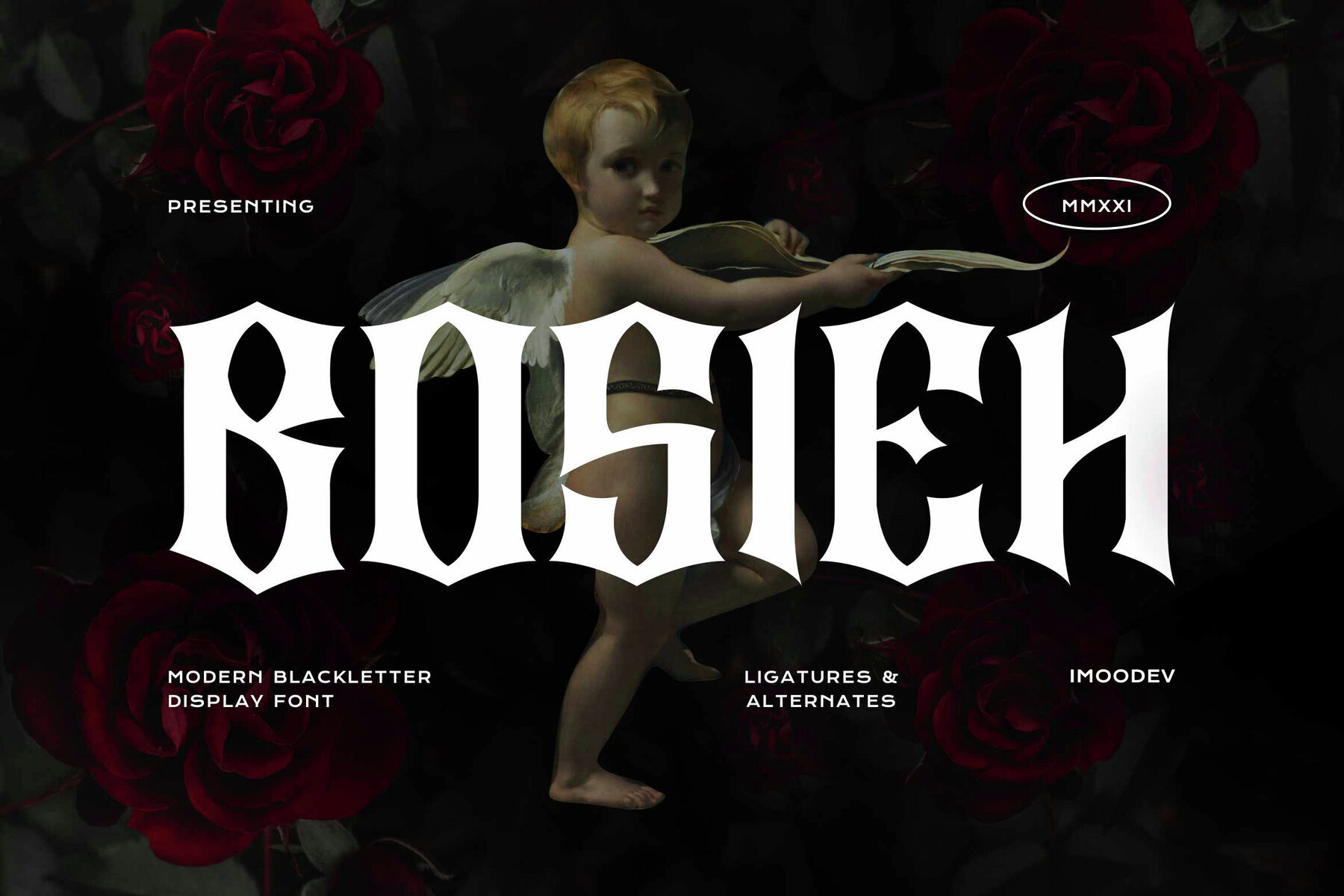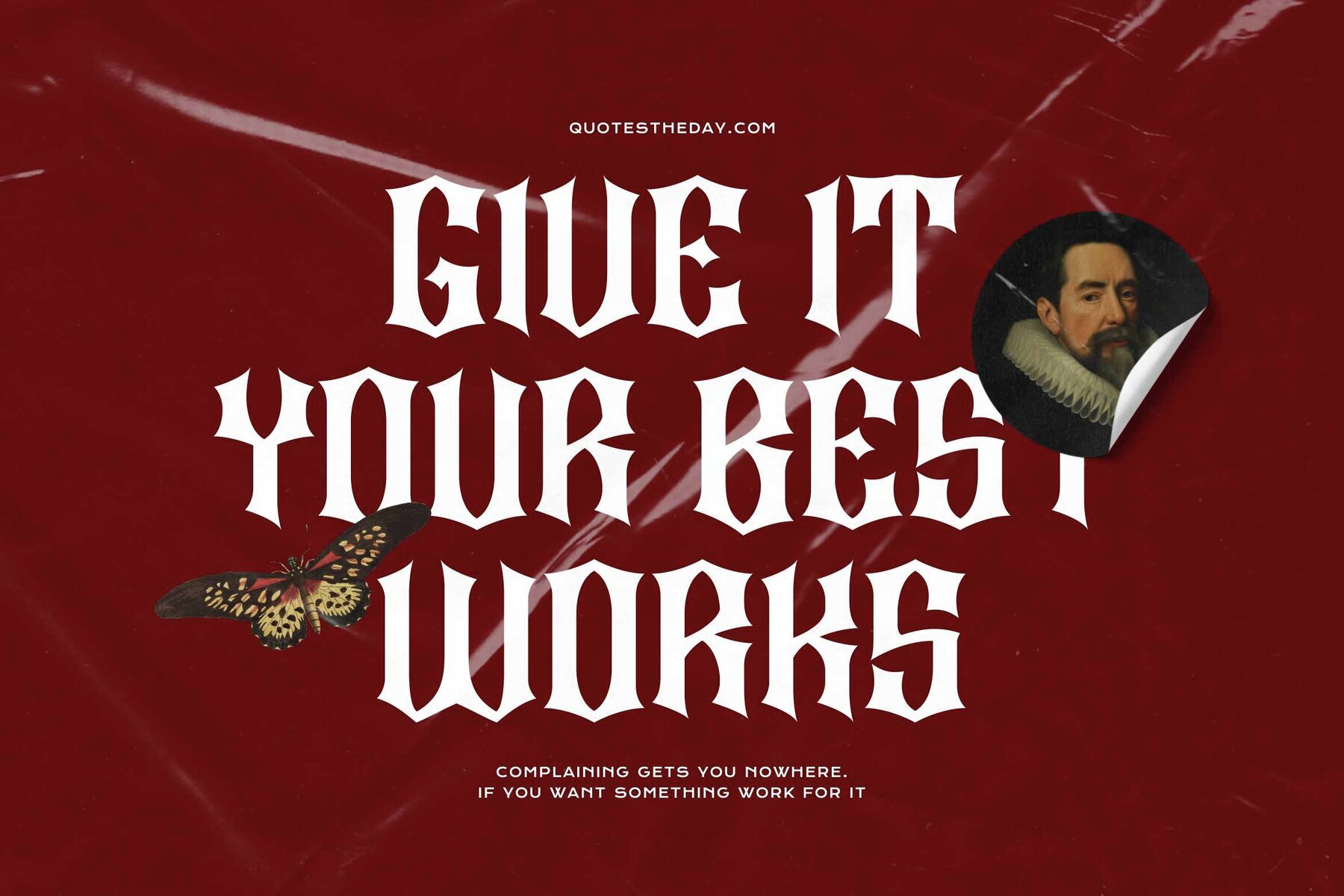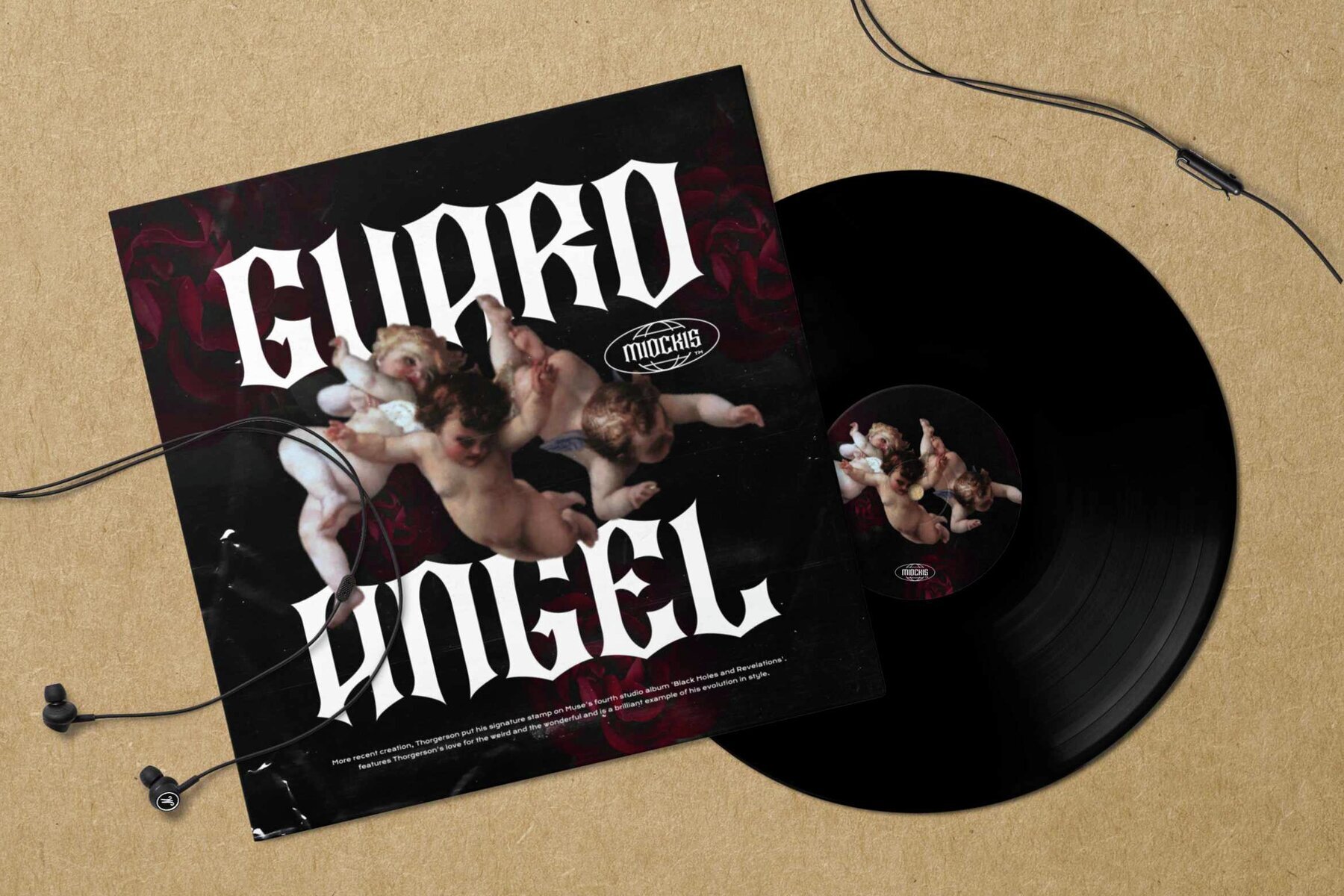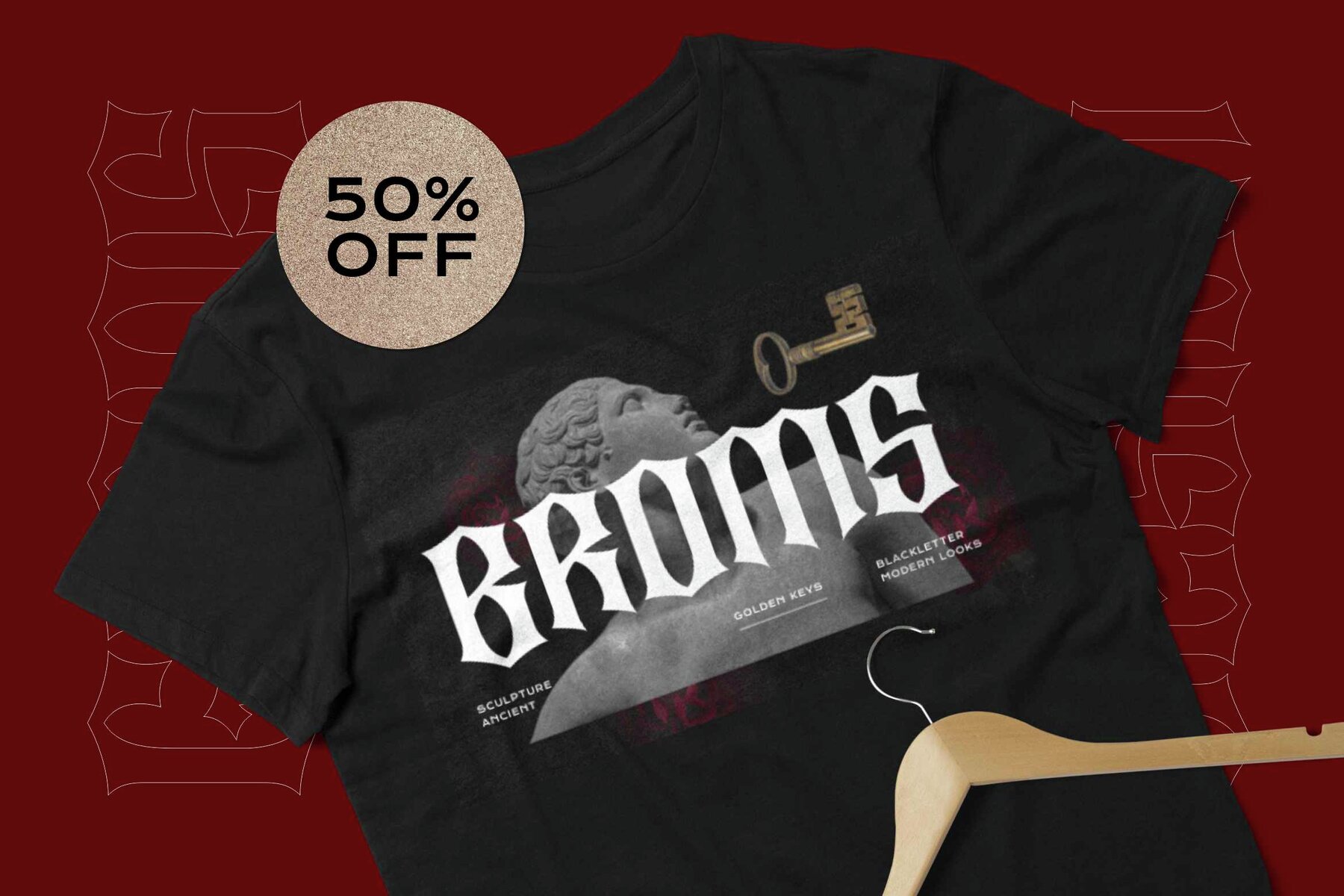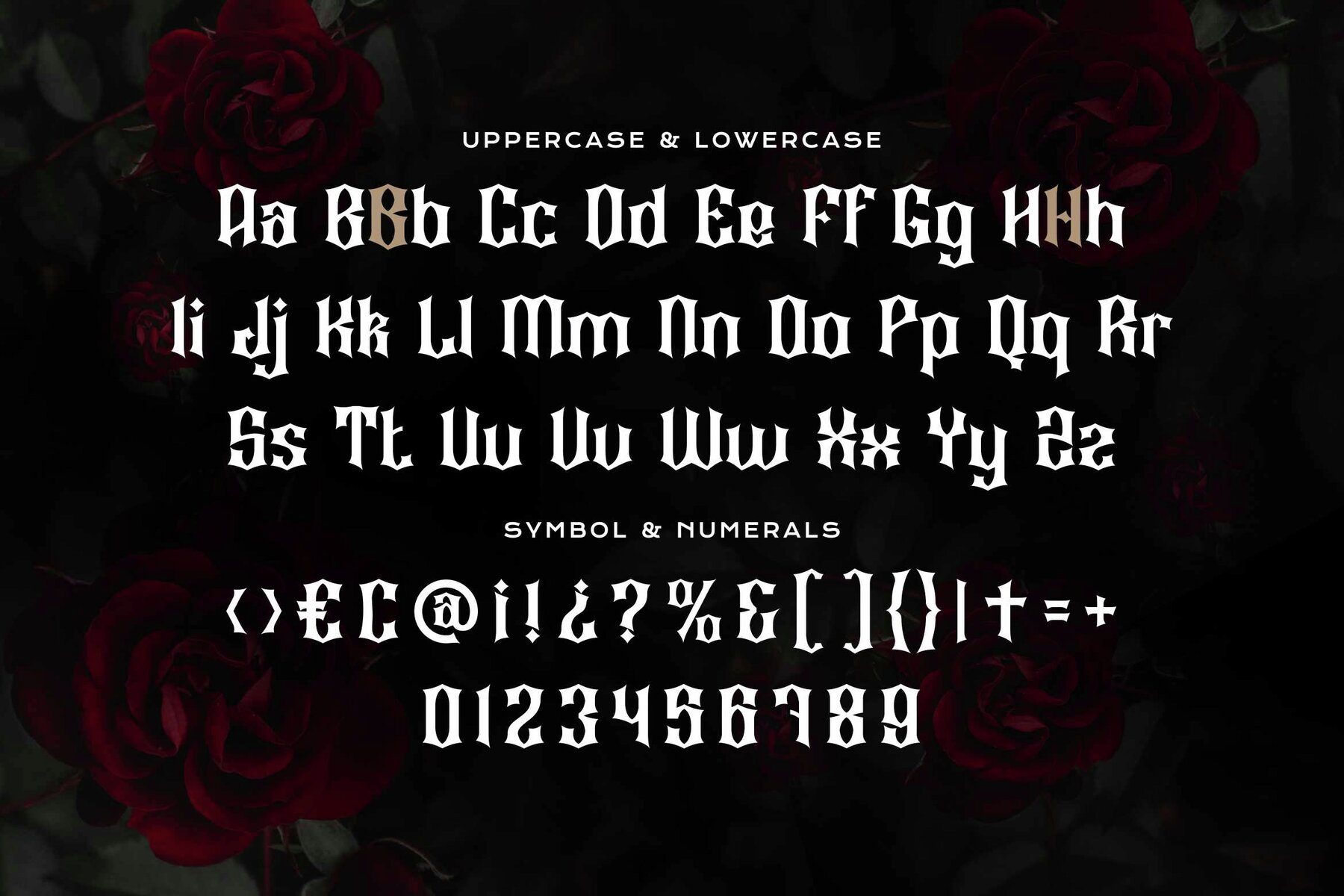
Bosieh Font
Bosieh Regular
Bosieh brings together the enduring presence of medieval Gothic lettering and a contemporary edge. Its sharp, angular lines and pronounced serif details create a bold statement, while the careful balance of thick and thin transitions gives every word a sense of movement and structure. The font’s architectural silhouette captures both tradition and modernity, forging a distinct style that feels fresh yet rooted in history. Bosieh stands out in projects demanding bold, confident typography. Its commanding character is ideal for packaging, posters, editorial layouts, or streetwear branding. This typeface adds depth and impact to album covers, rock music events, or any creative work with a dark, powerful aesthetic. Bring out the visual drama and historical intensity that only blackletter fonts can offer, now blended with modern sensibility for design-forward results.Bosieh – Modern Blackletter Display Font